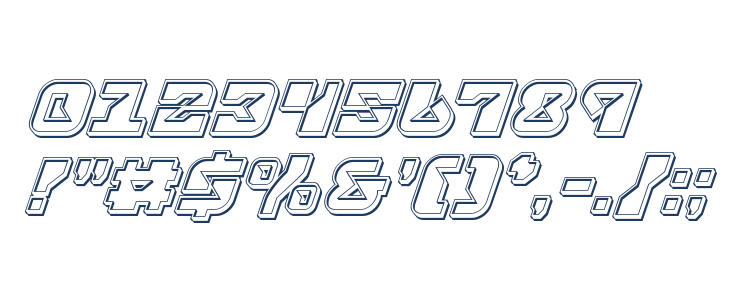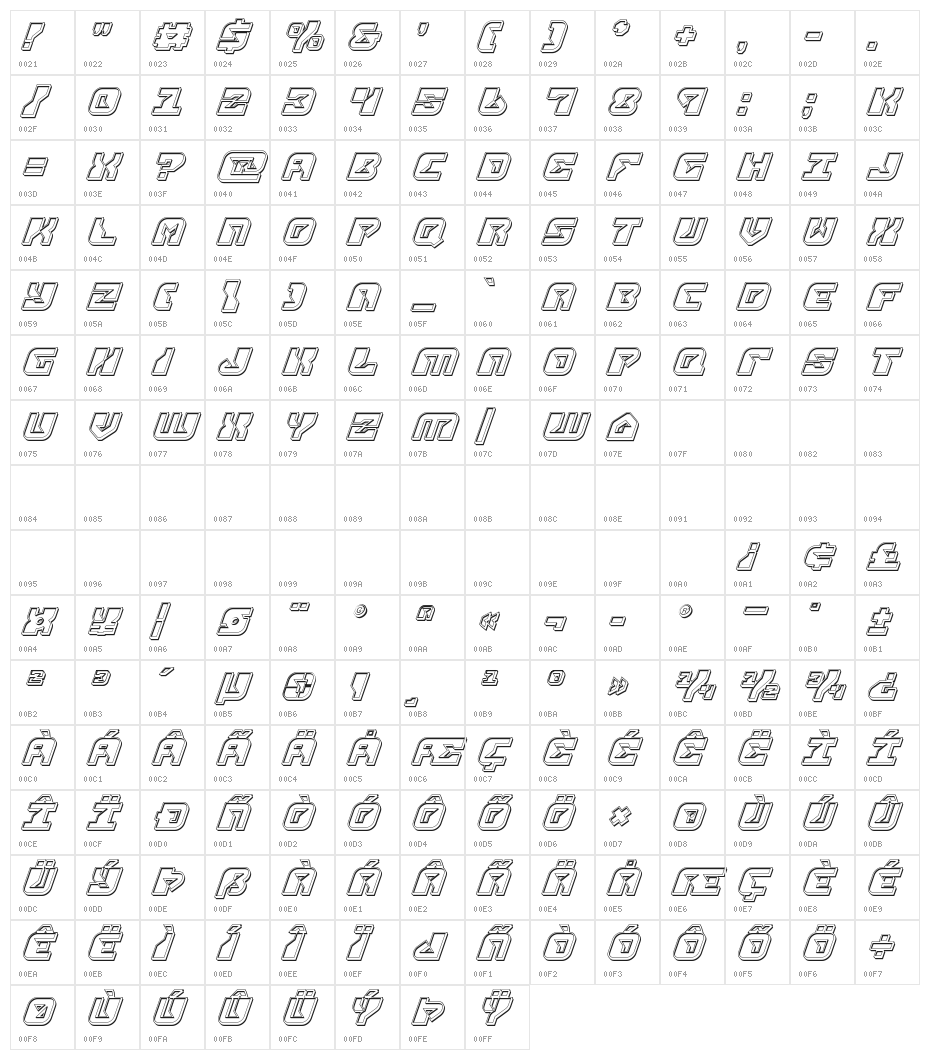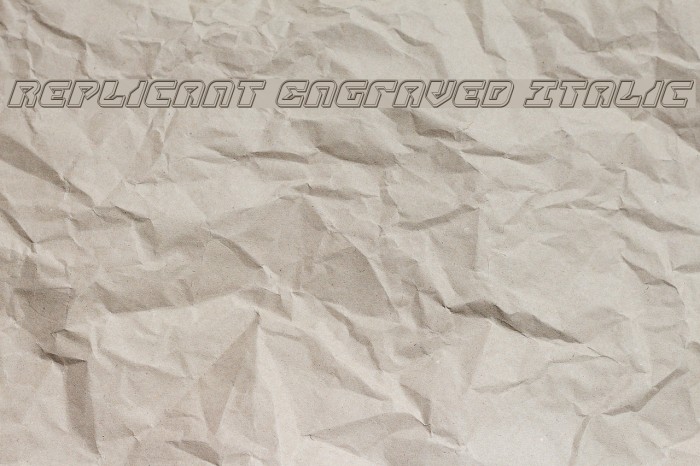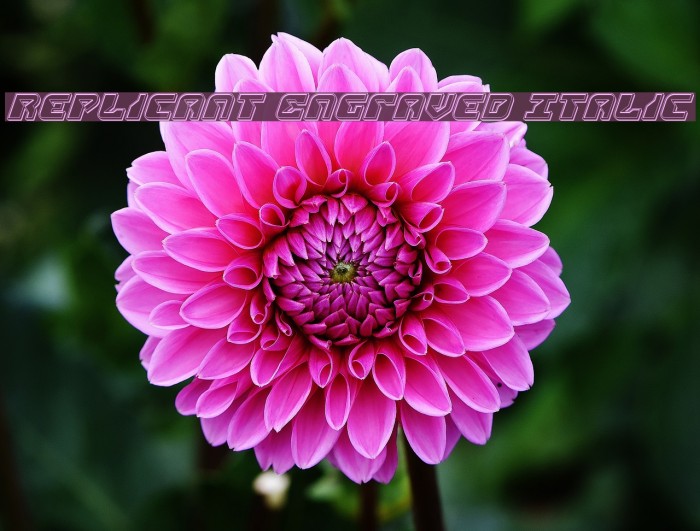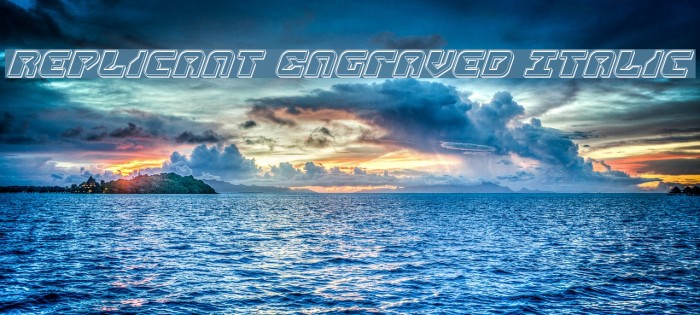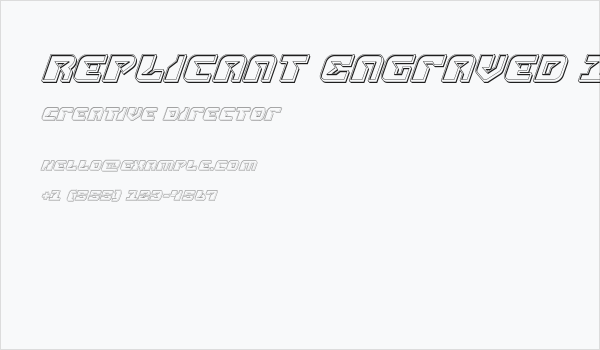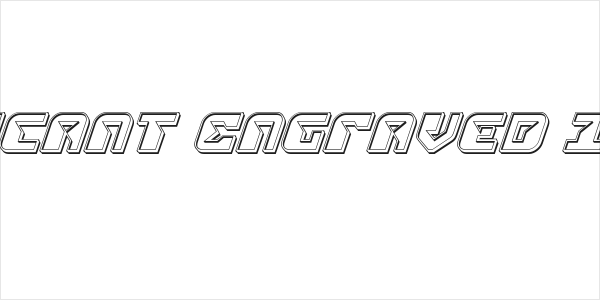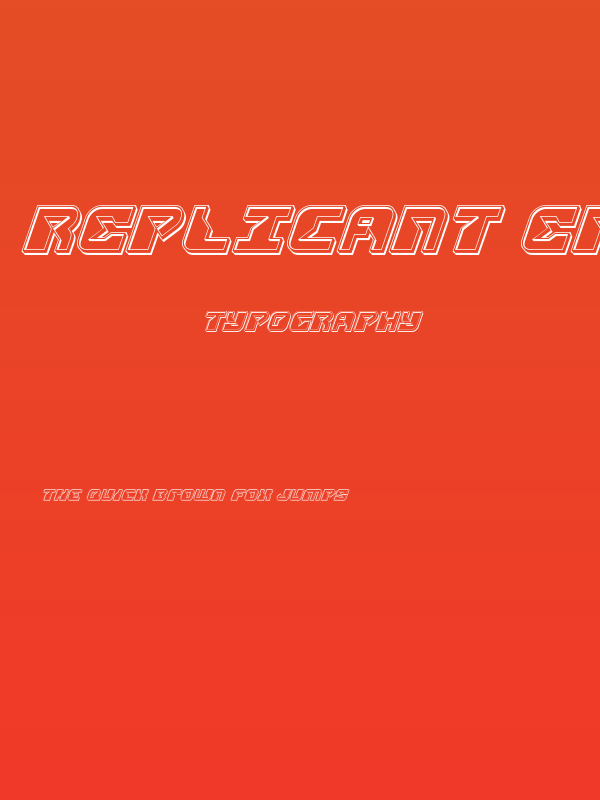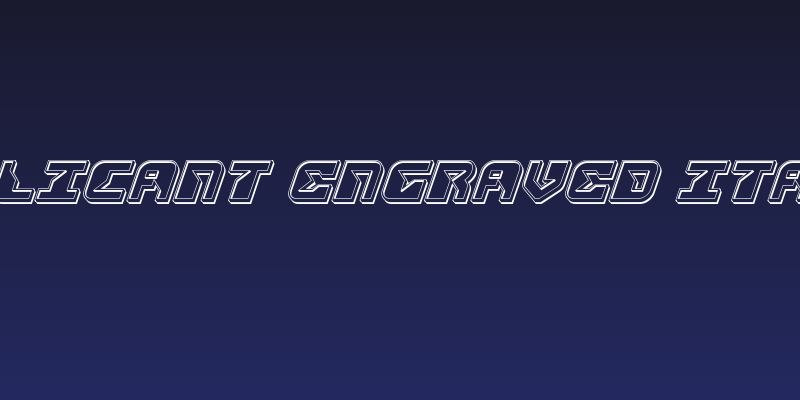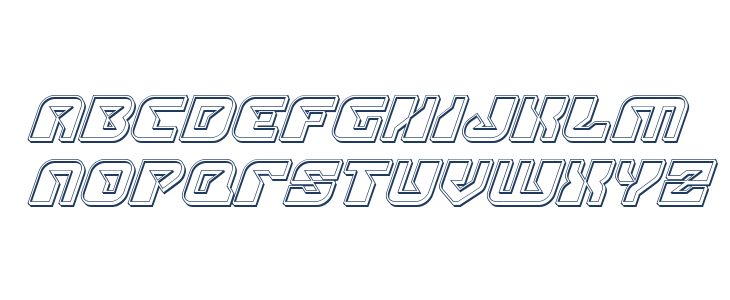
Replicant Engraved Italic Font
Replicant Engraved Italic Description
This font features a futuristic and bold design with an engraved, three-dimensional appearance. The characters are outlined, giving them a distinct, layered look that suggests depth and dimension. The italic slant adds a dynamic and forward-moving energy, making it ideal for projects that require a sense of motion or modernity. The uppercase and lowercase letters maintain a consistent style, with sharp angles and geometric shapes. The numerals and special characters follow the same design principles, ensuring uniformity across all glyphs. This font is well-suited for creative and eye-catching designs.
Overall StyleFuturistic
Proposed ProjectsIdeal for sci-fi themed designs, video game titles, tech branding, and futuristic posters.